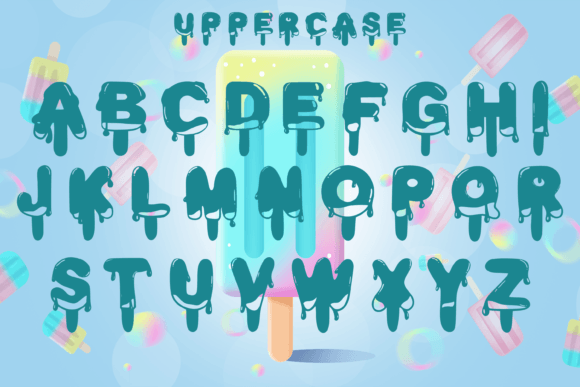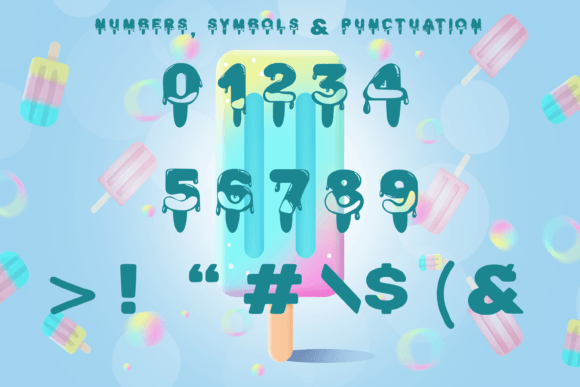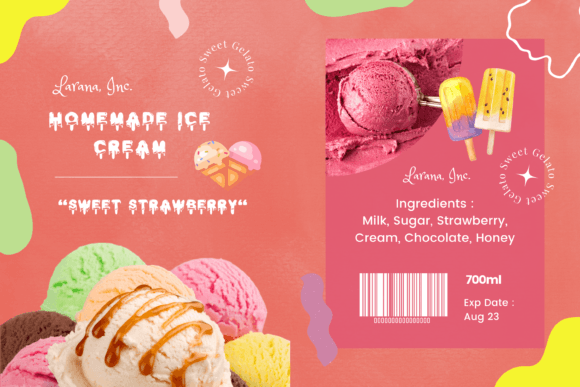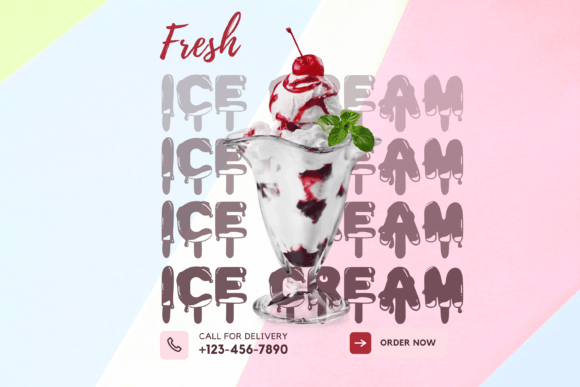
Introduction to Popsicles Font Font
Fonts play a crucial role in design, and the Popsicles Font font is a typeface that brings both character and versatility to any project. Whether you’re working on a branding project, a website, or a print design, the Popsicles Font font offers a unique style that can elevate your work.
Popsicles is a cute and fun decorative font.
It embodies playfulness and authenticity and is the perfect choice for various projects, such as blog posts, logos, branding, ads, invitations, greeting cards, planners, photo albums, decorations, and much more .
Key Features of Popsicles Font Font
Why Choose Popsicles Font Font?
The Popsicles Font font is more than just a typeface – it’s a design tool that helps you communicate your message with style and clarity. Its unique character set and versatile design make it suitable for a wide range of applications, from elegant invitations to bold headlines.
With its carefully crafted letterforms and balanced proportions, the Popsicles Font font ensures readability and visual appeal across all mediums.
What makes Popsicles Font font special?
The Popsicles Font font stands out with its unique design, exceptional readability, and versatility across various design applications.